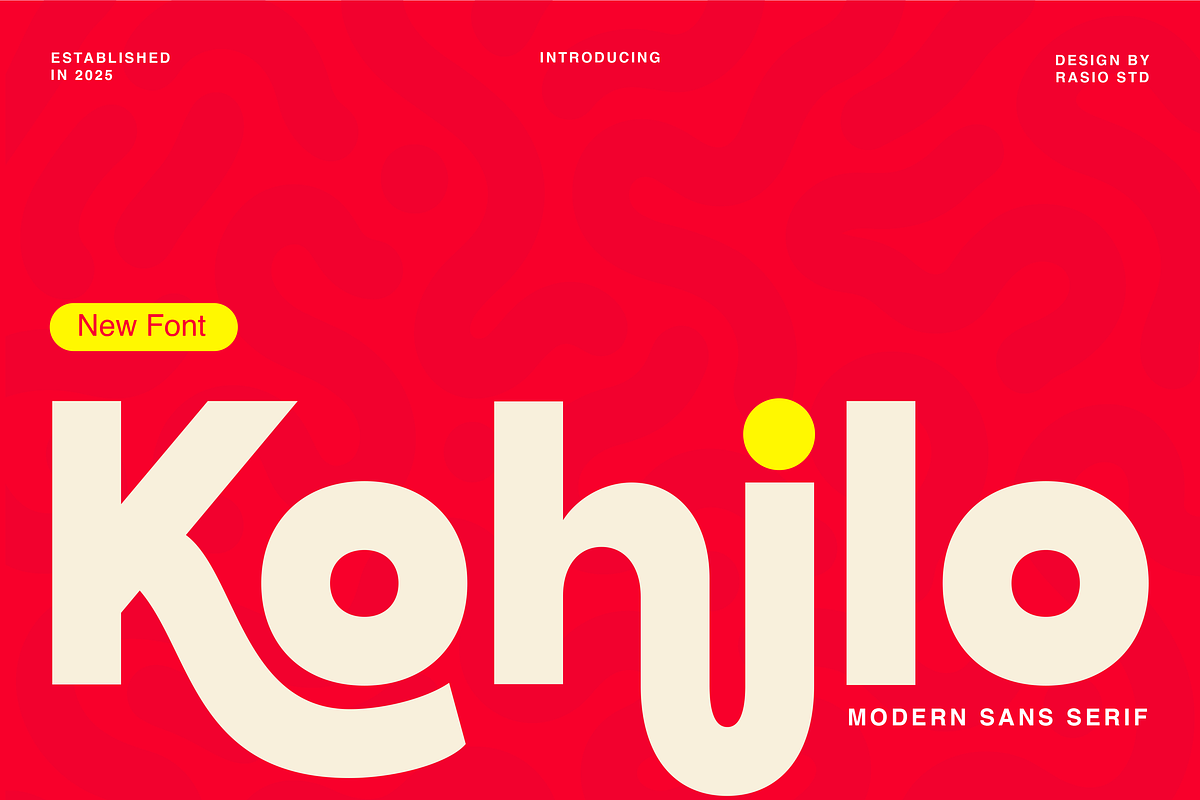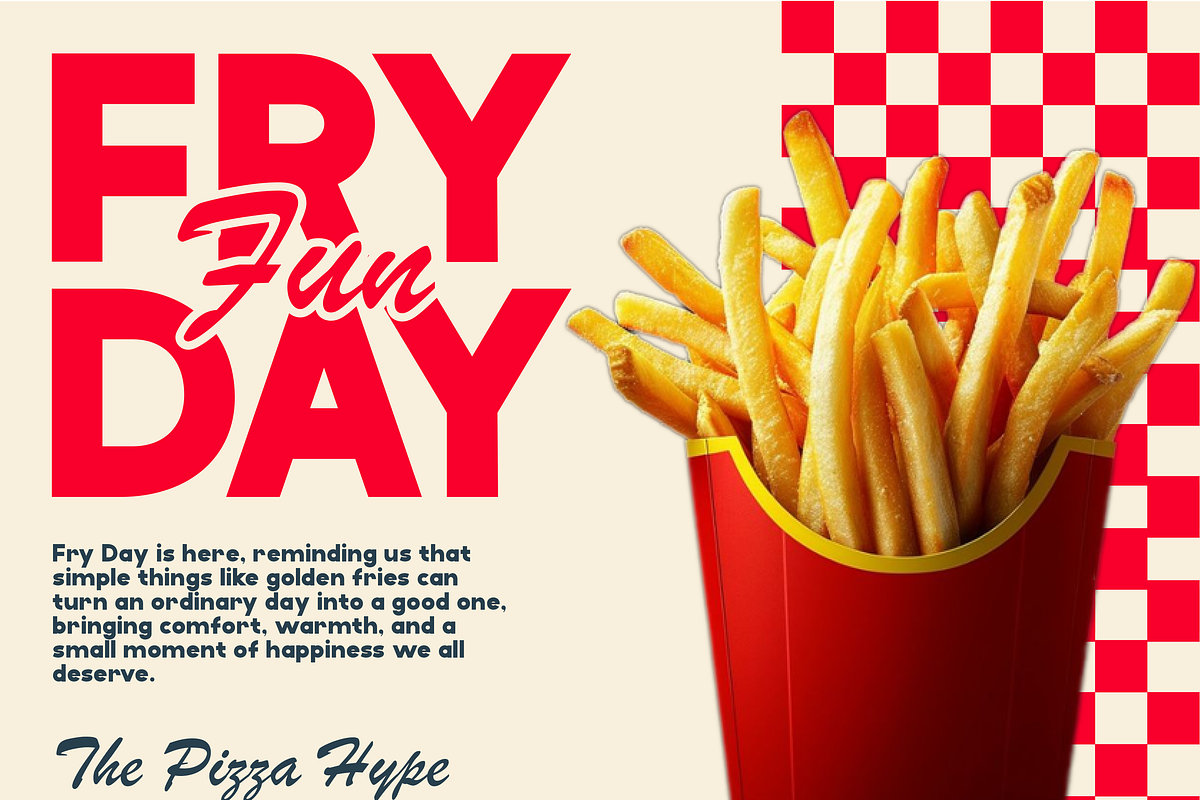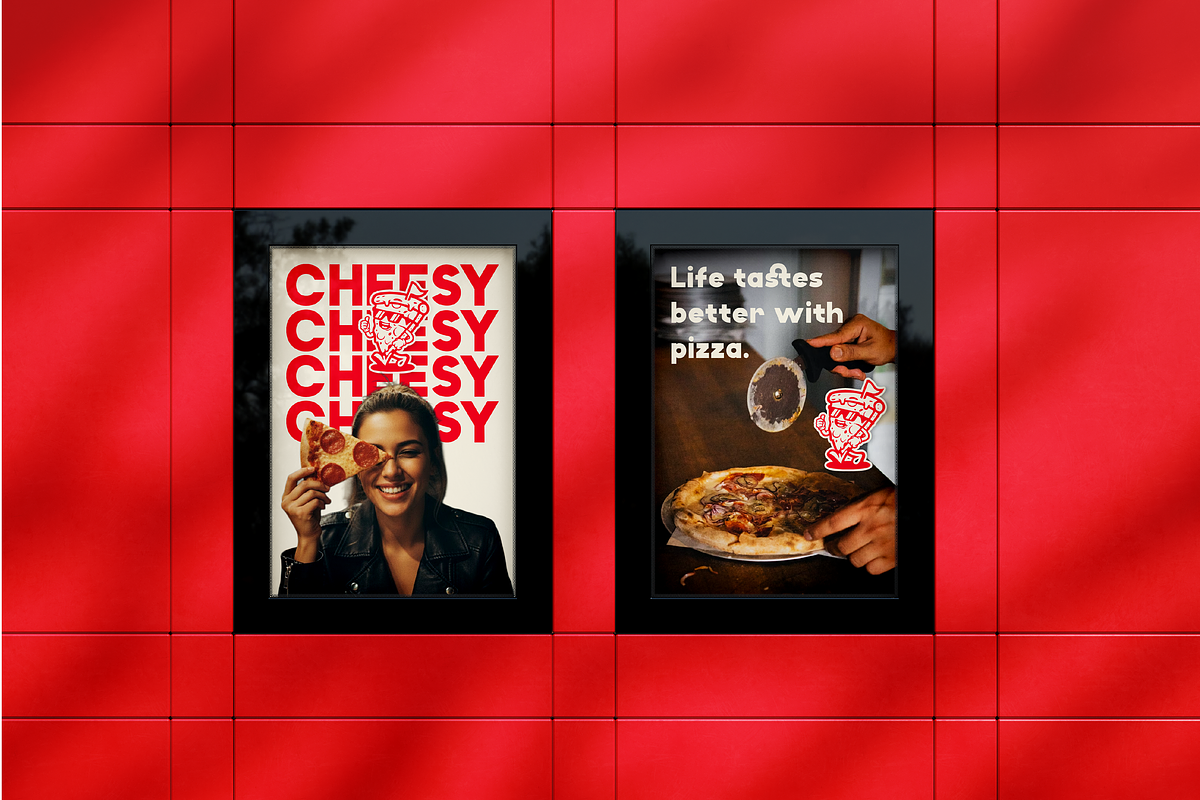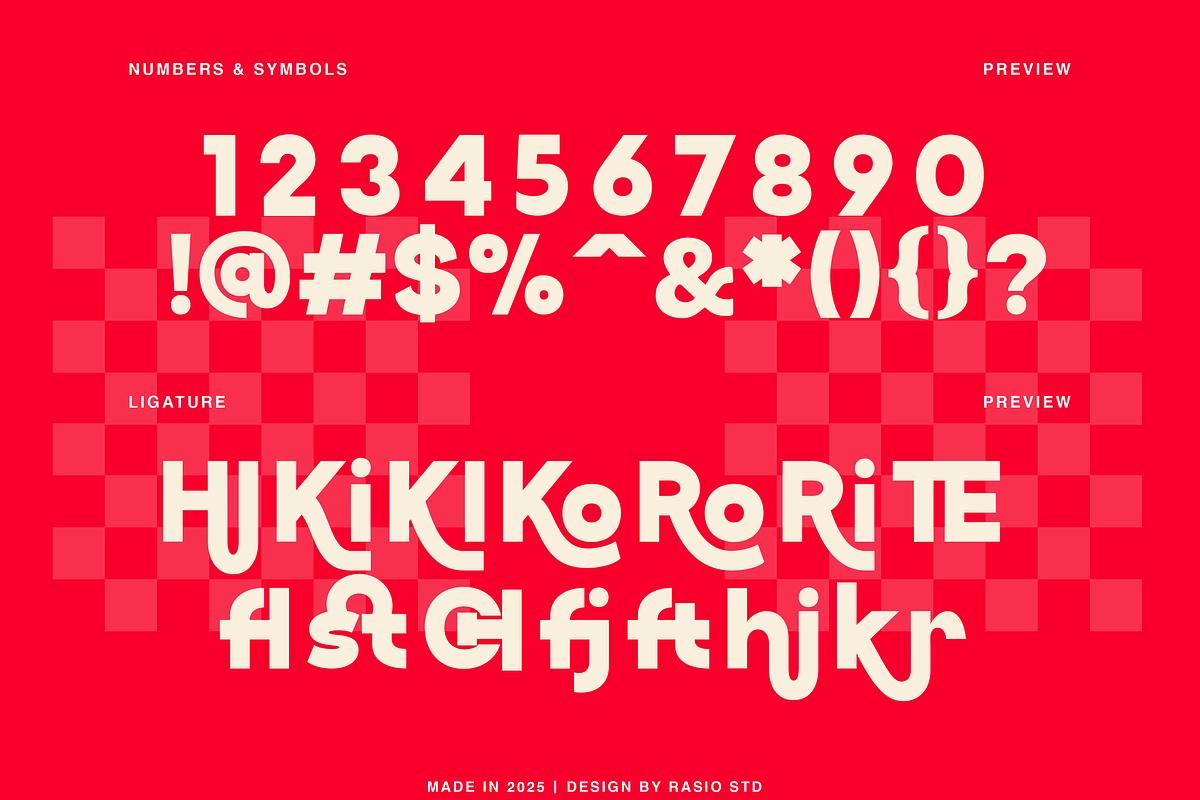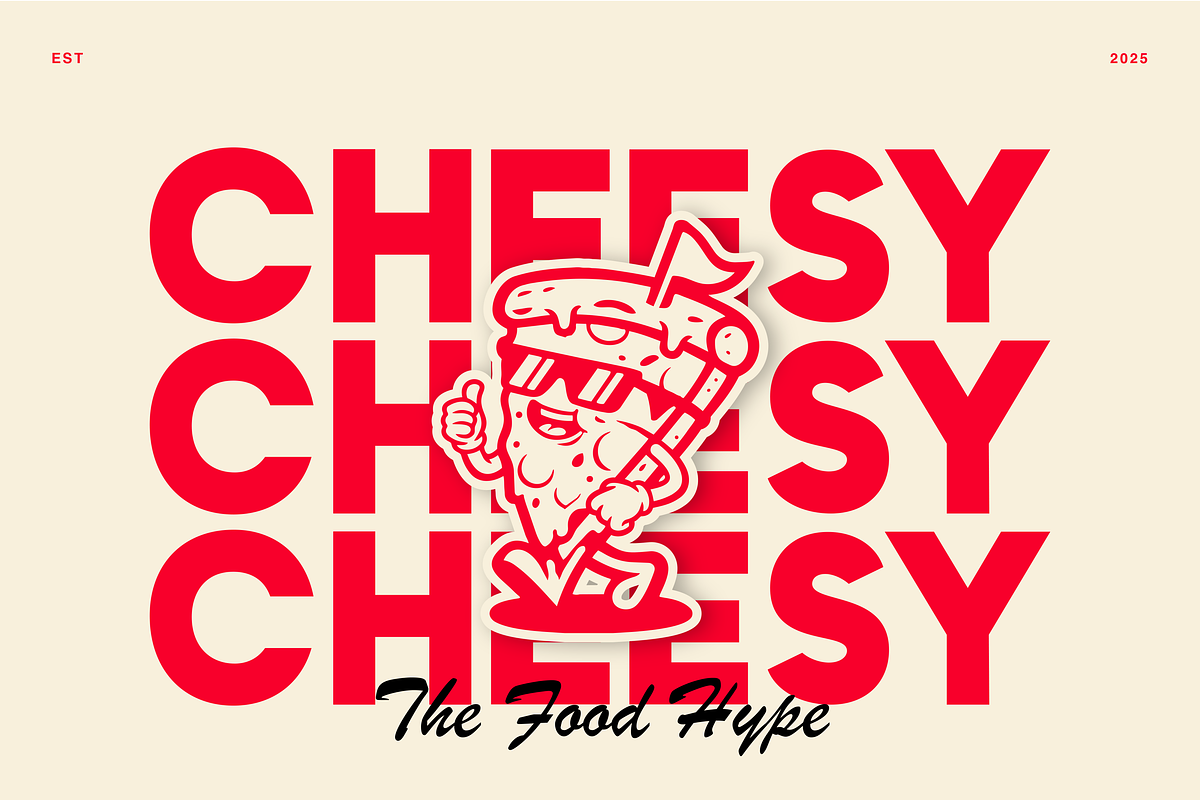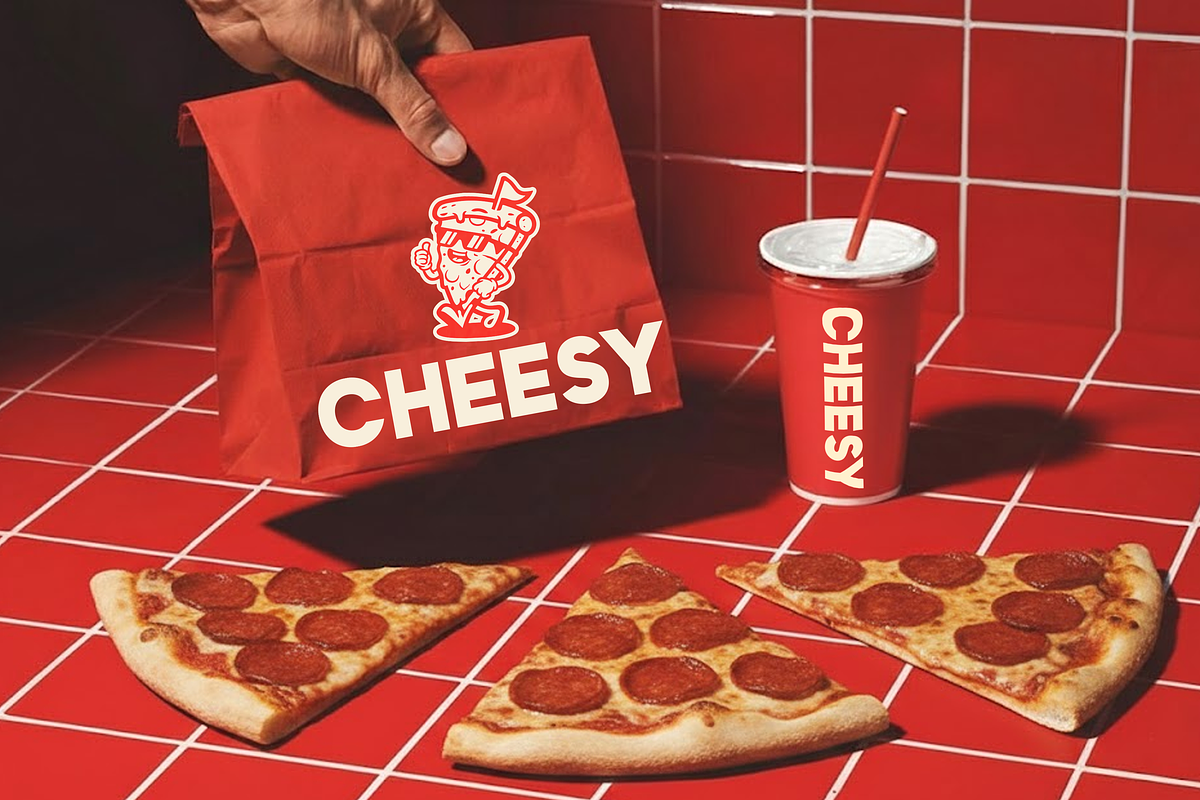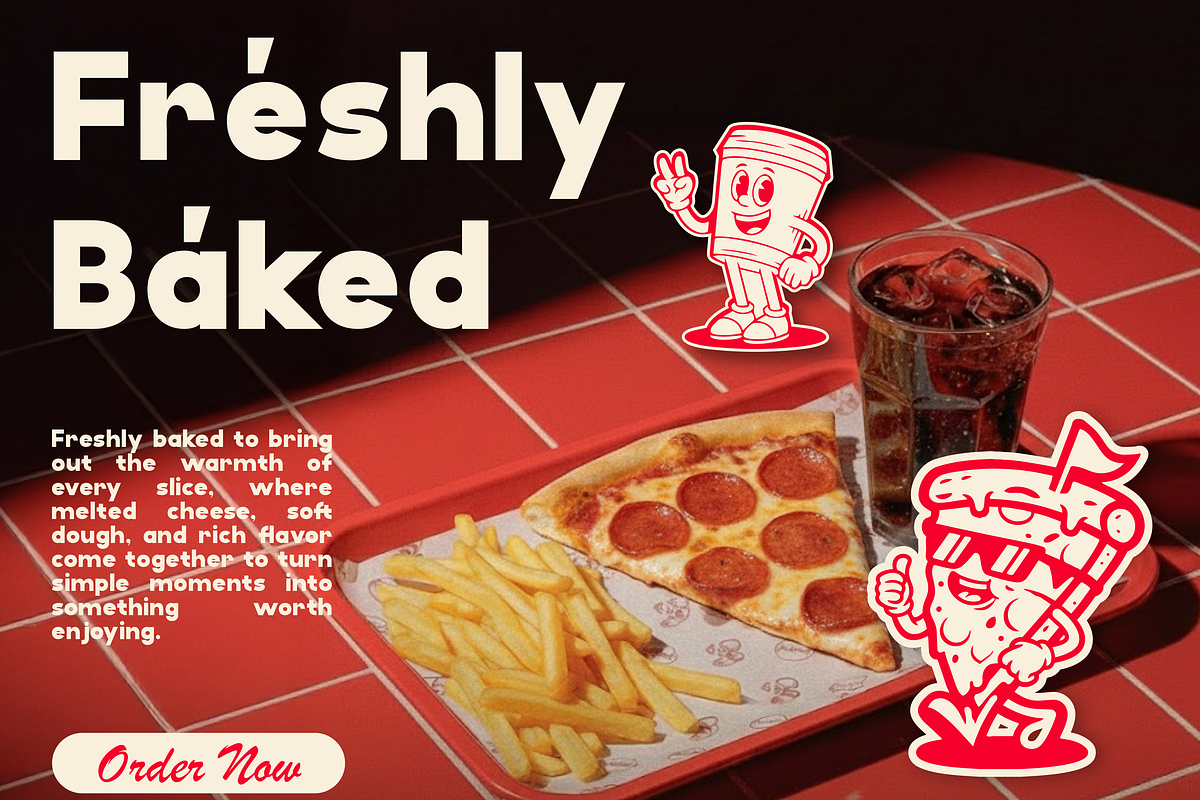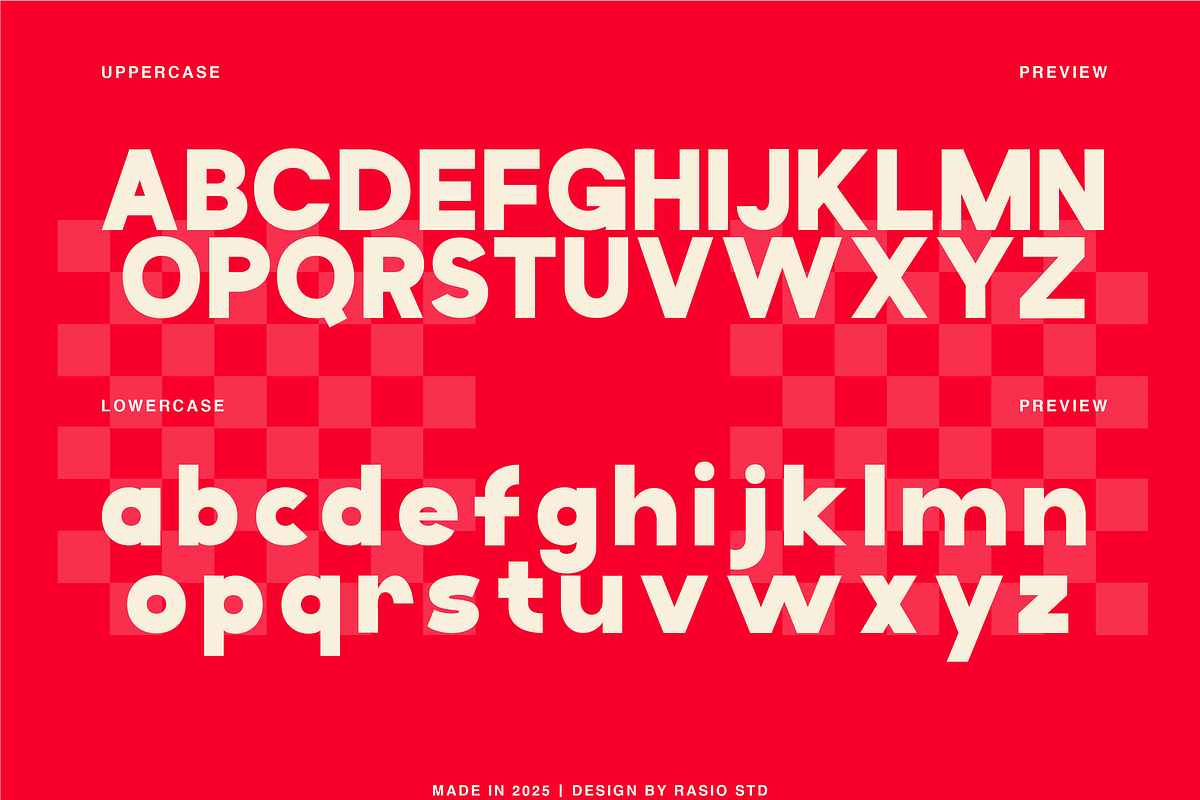
Kohilo Modern Sans Serif Font
Kohilo is a modern sans serif font with bold geometric shapes and playful curves, perfect for branding, headlines, and display purposes. Designed by Rasio Std and released in 2025, this versatile typeface includes uppercase and lowercase characters, offering a clean, retro-inspired look that blends professionalism with creativity. The soft-rounded edges and dynamic forms make Kohilo ideal for visual identity projects, promotional materials, food packaging, or stylish advertising campaigns.
Relevance and Use Cases is perfect for creative professionals, entrepreneurs, and designers seeking a bold yet clean font to elevate their visual communication. Its modern sans serif style makes it ideal for branding identities, food packaging, startup promotions, and merchandise. Whether you're designing a trendy restaurant logo, vibrant social media campaign, or a youthful editorial spread.
- Modern sans serif with bold geometric structure and smooth curves
- Soft rounded terminals that create a friendly and approachable tone
- Clean and minimal letterforms with strong visual clarity
- Subtle playful details in character shapes for added personality
- Balanced proportions and spacing for impactful display readability
- Modern brand identity with a bold and confident visual tone
- Logo design with clean, strong, and contemporary character
- UI and digital interfaces that need clarity with a friendly touch
- Product packaging with a modern and eye-catching presence
- Social media graphics and marketing materials with bold impact
- Headlines, posters, and display typography with strong readability
Shape your message with a bold, clean typeface designed with Kohilo